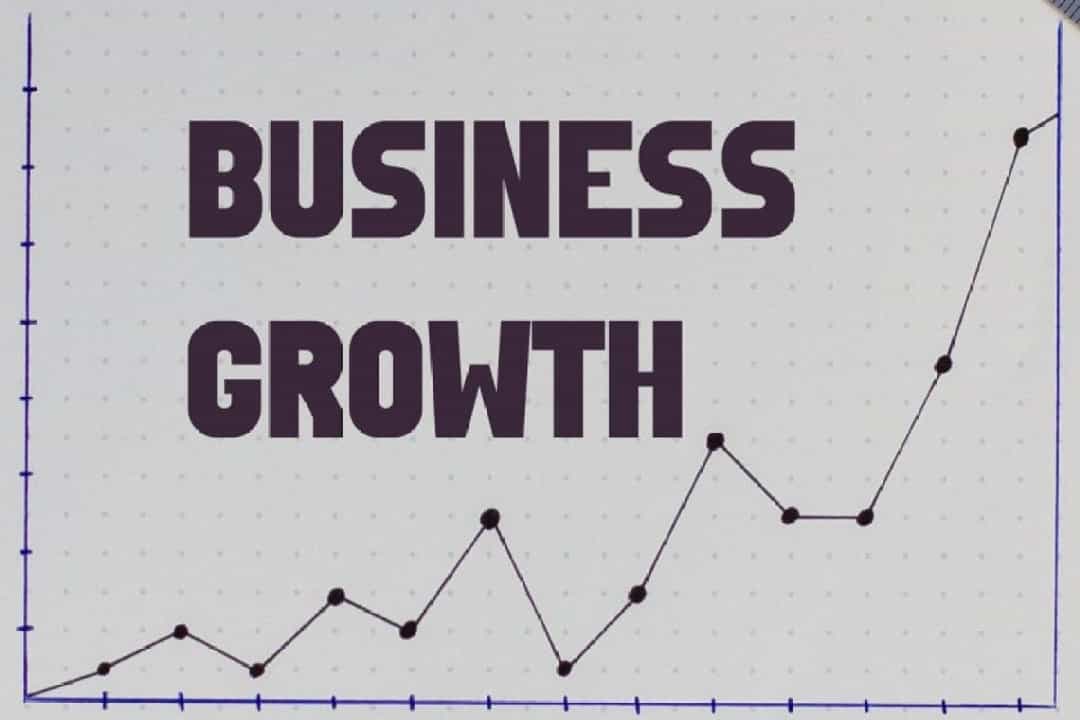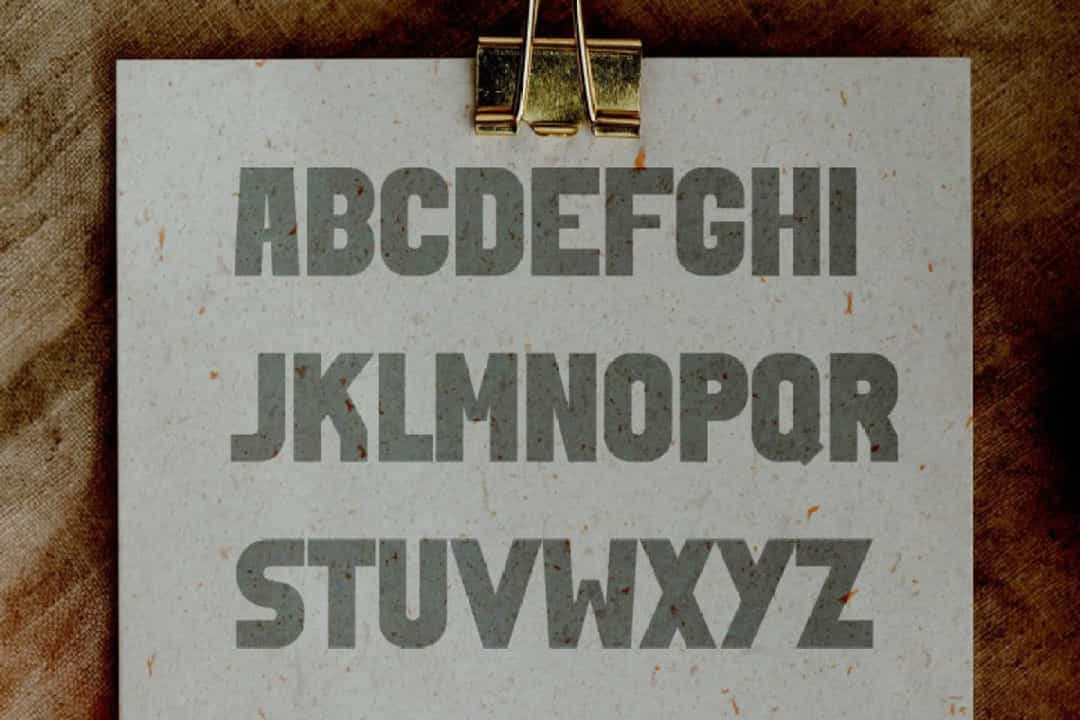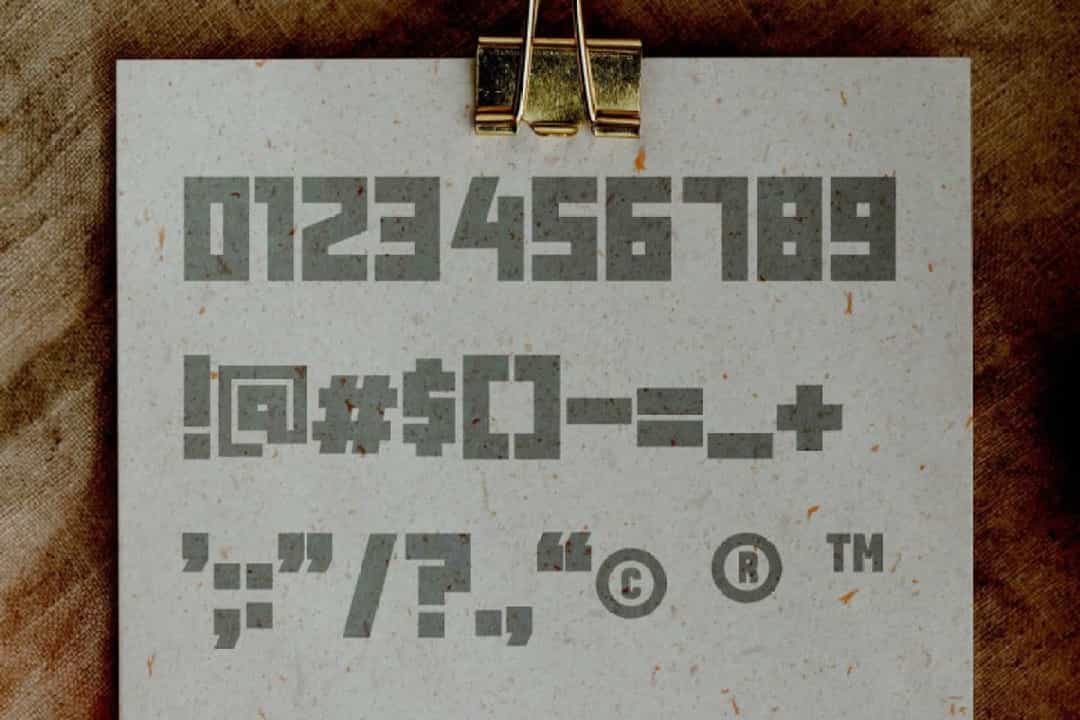
Business Growth” is an impressive sans-serif font designed to make your work look impressive! Add it to any creative projects and watch as its presence makes an impressionful statement about them!